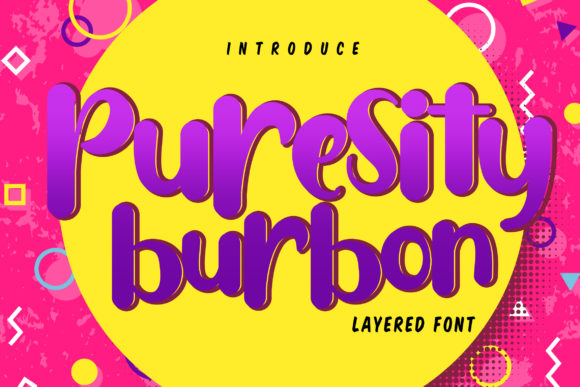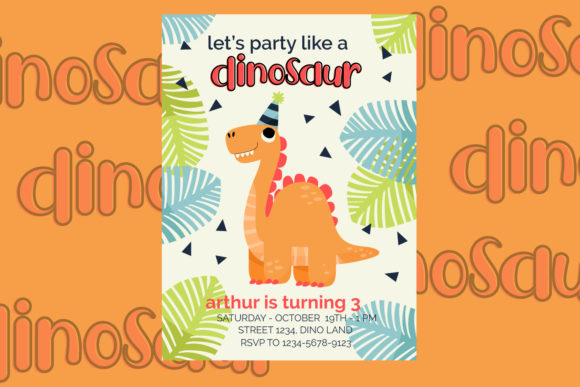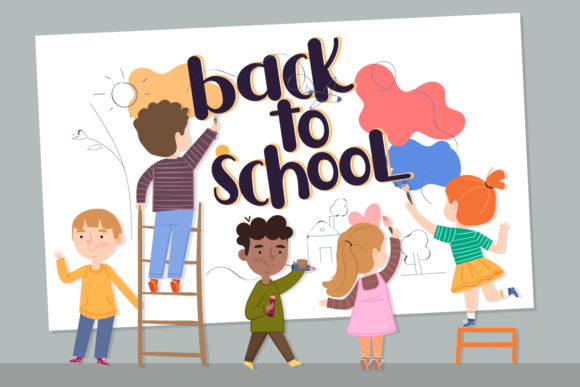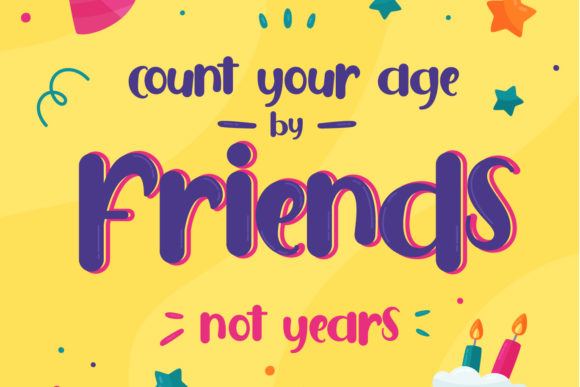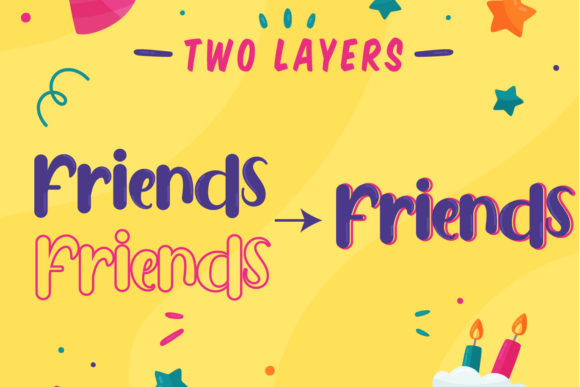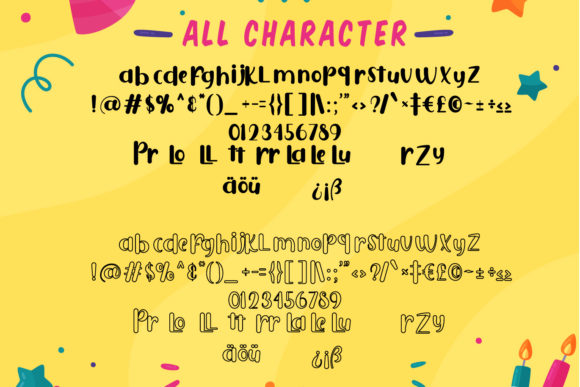
Puresity Burbon Font
About Puresity Burbon Font
Puresity Burbon is a layered font featuring charming characters. It is perfectly suited for a variety of crafting projects!